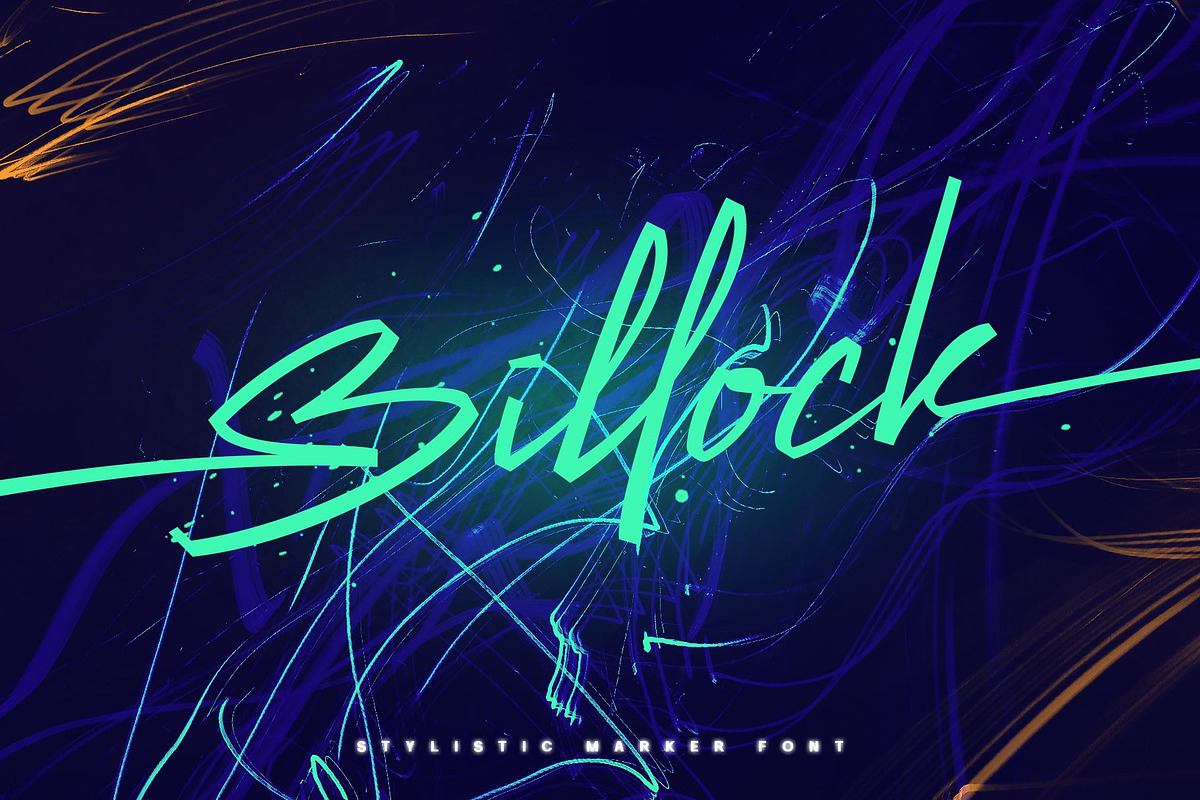
Billock Script font Free Download
Billock Script Font Free Download
With its delicate curves and graceful strokes, Billock Script adds a personal and artistic flair to your designs, making it ideal for projects that need a refined, handwritten aesthetic. Whether you're working on a chic wedding invitation, a luxury brand identity, or a personalized greeting card, this font will bring beauty and elegance to your typography.